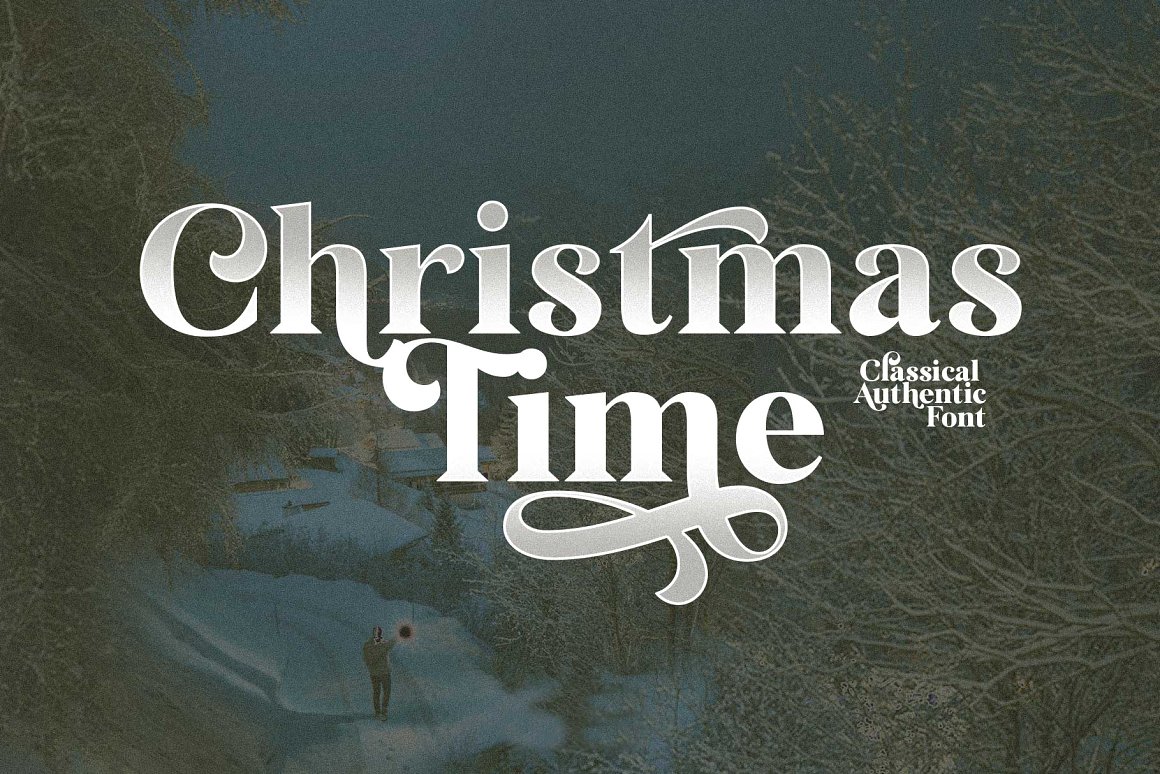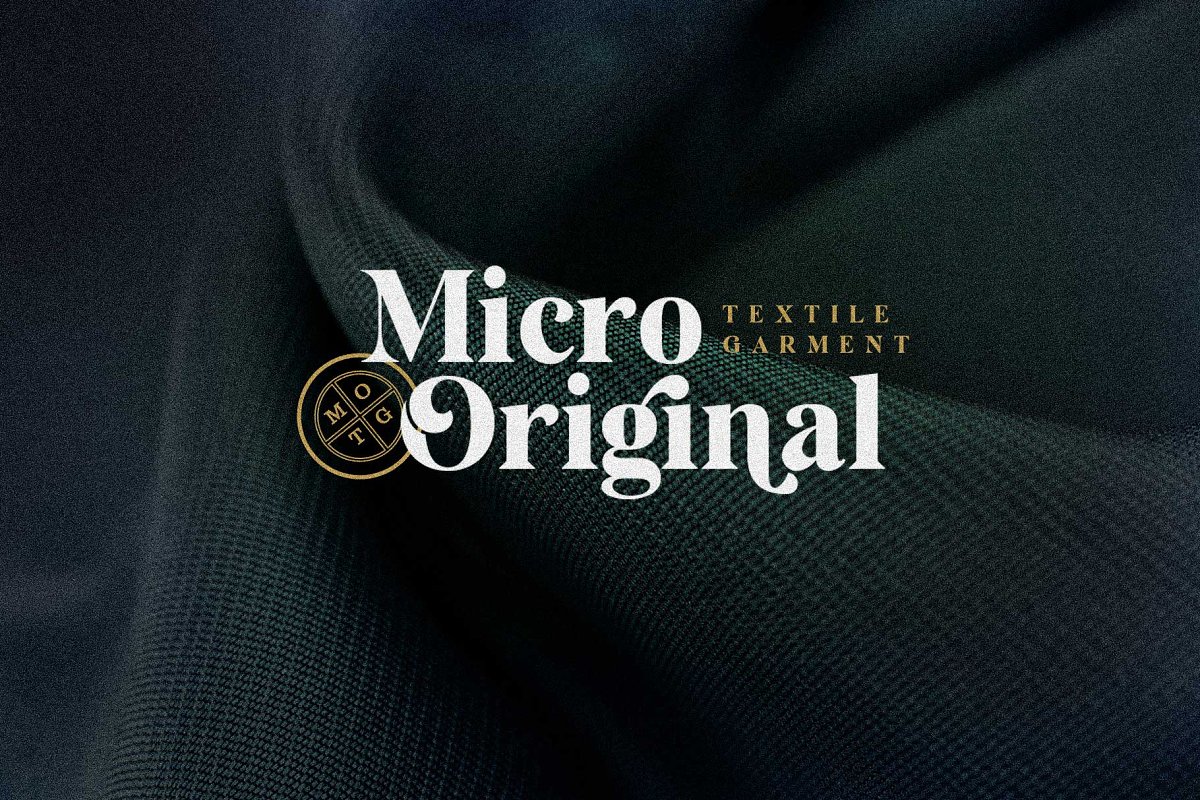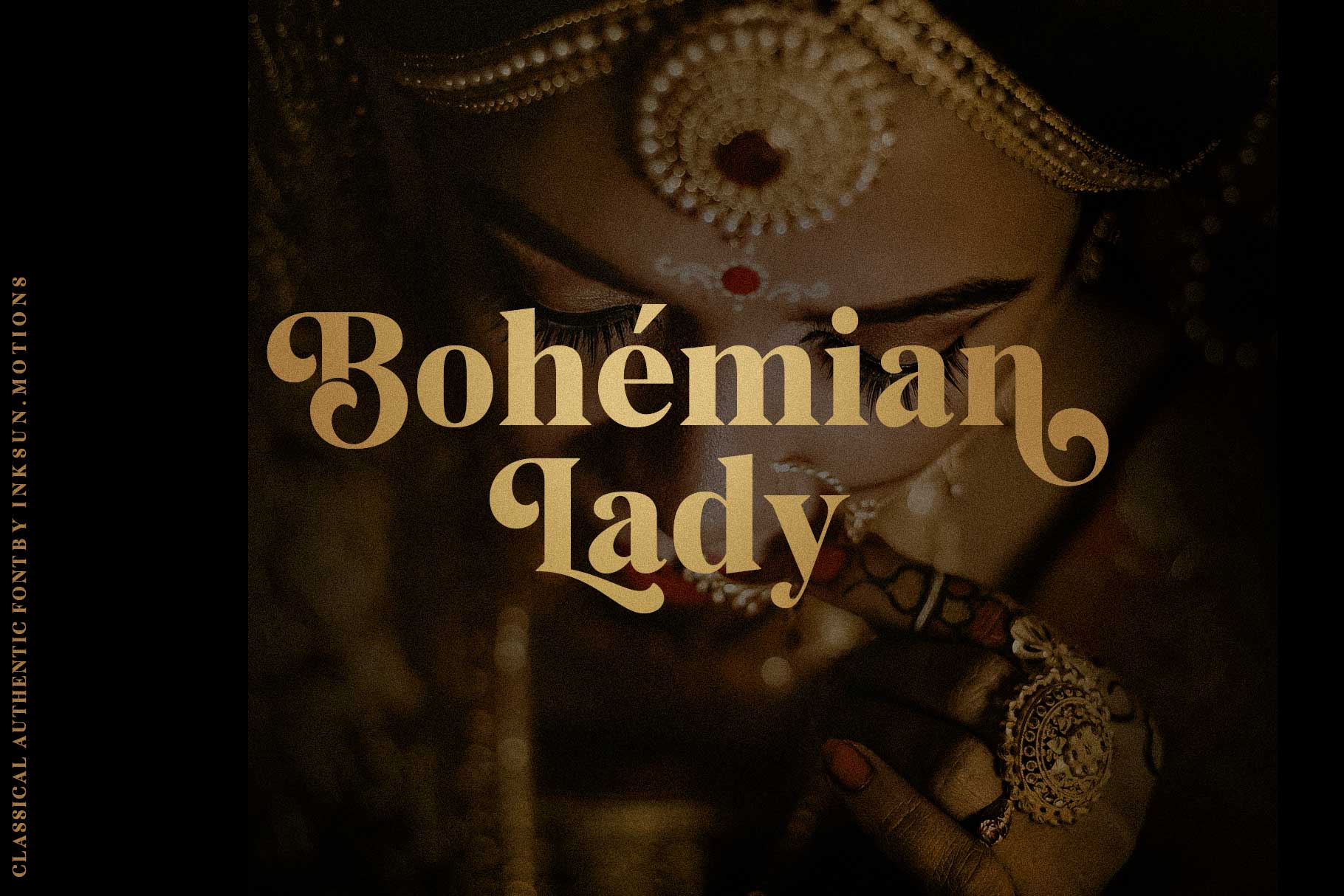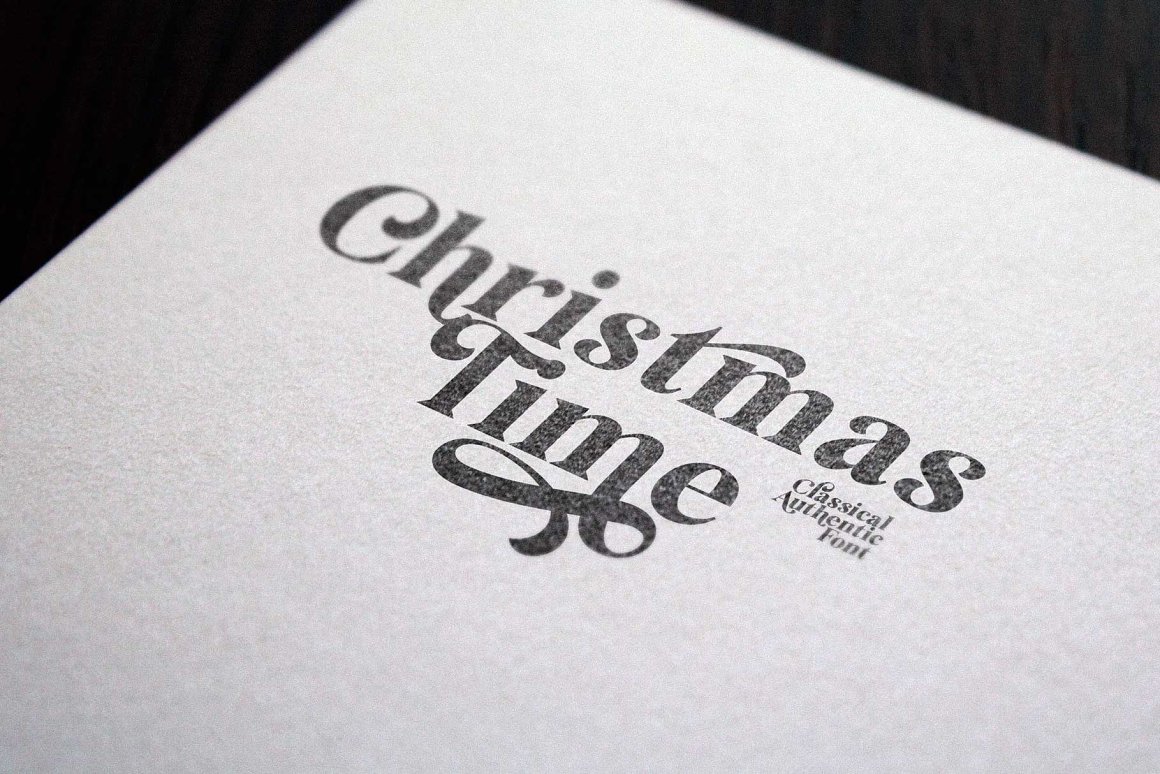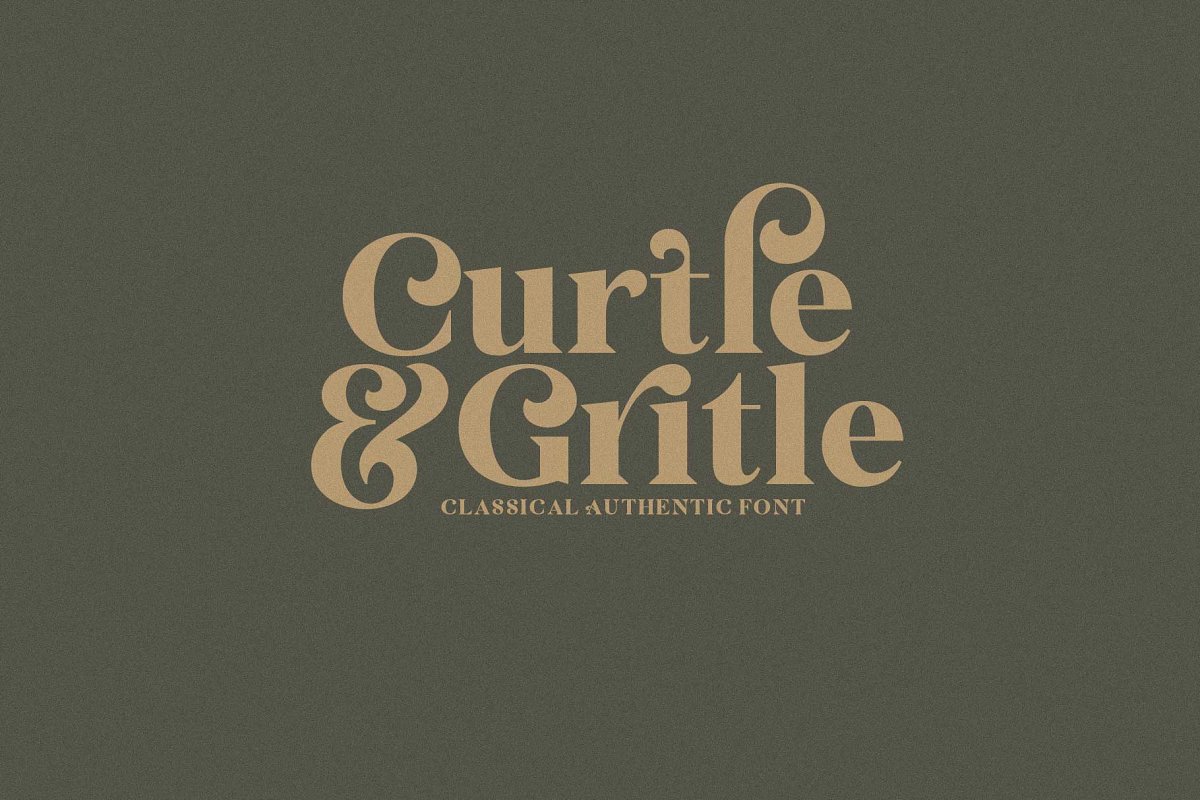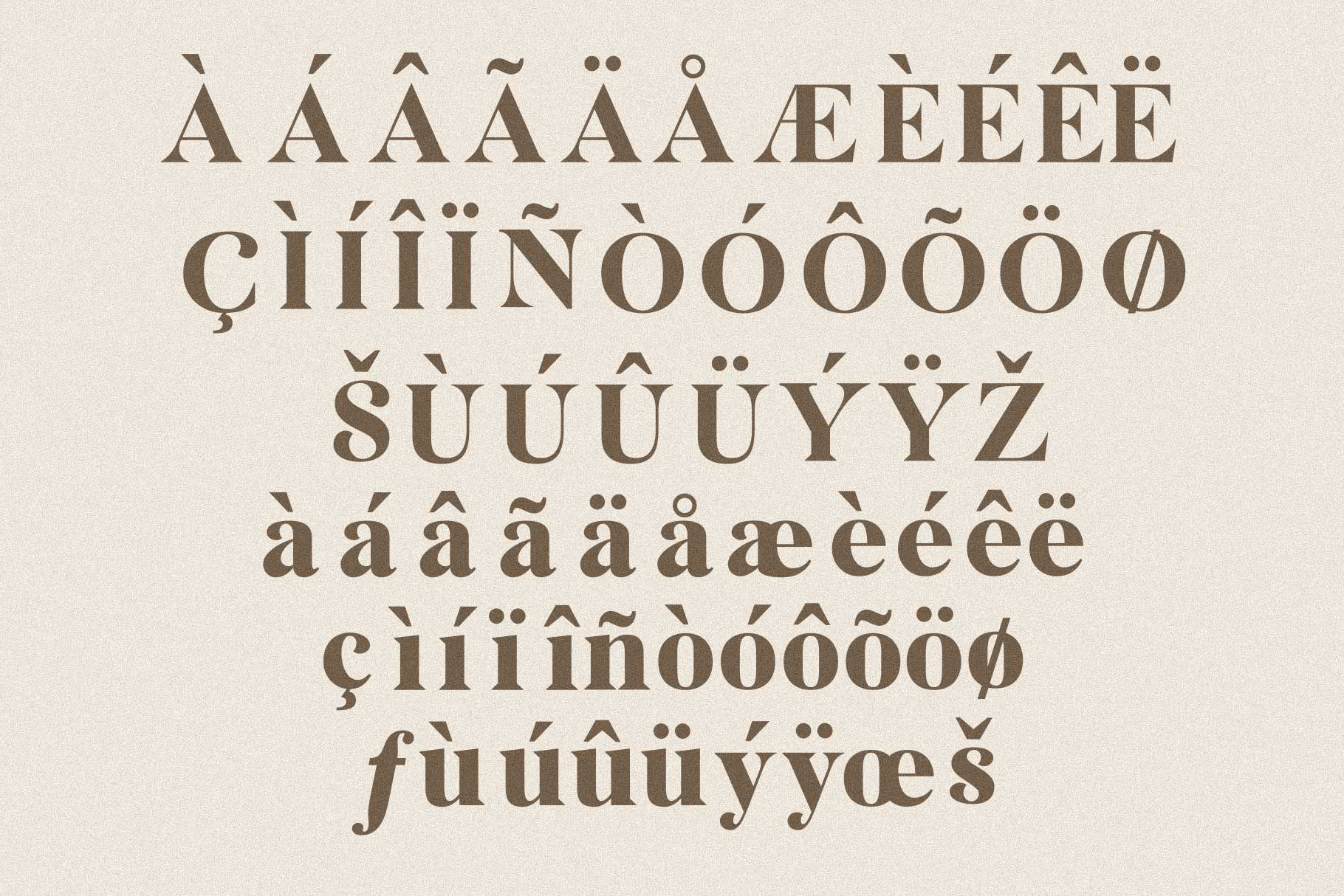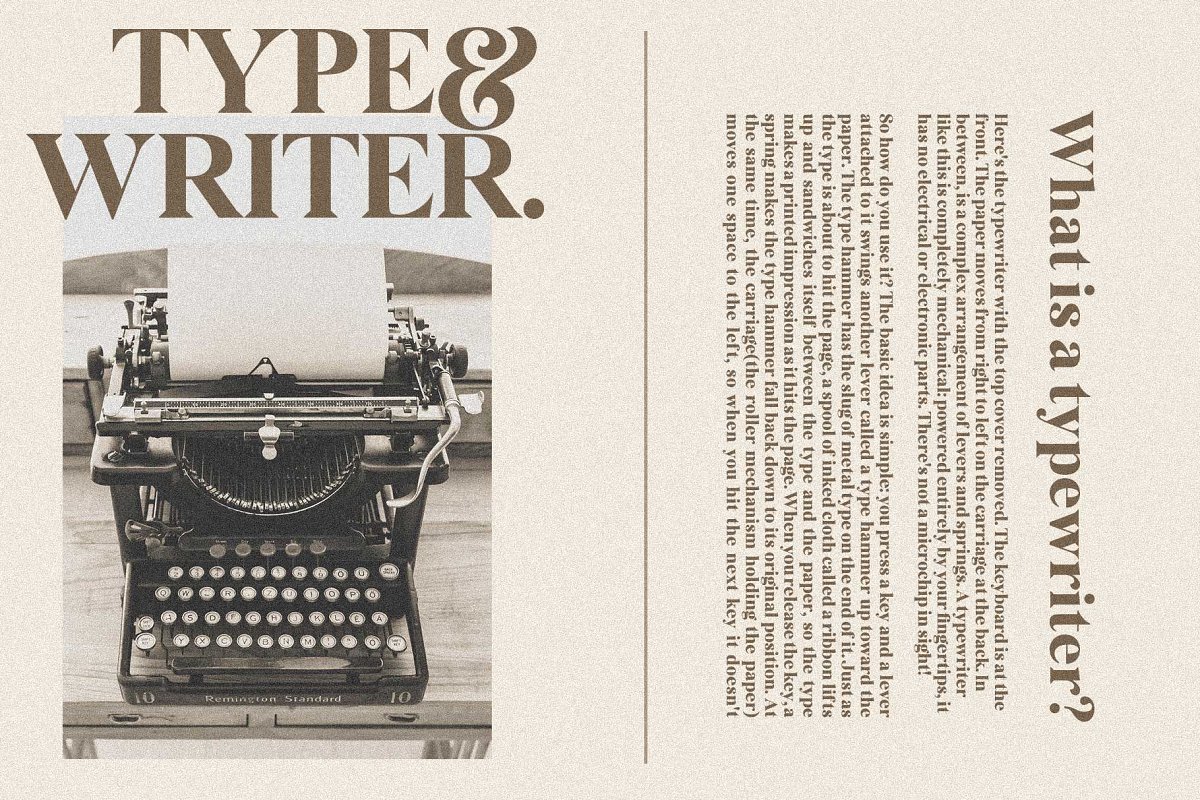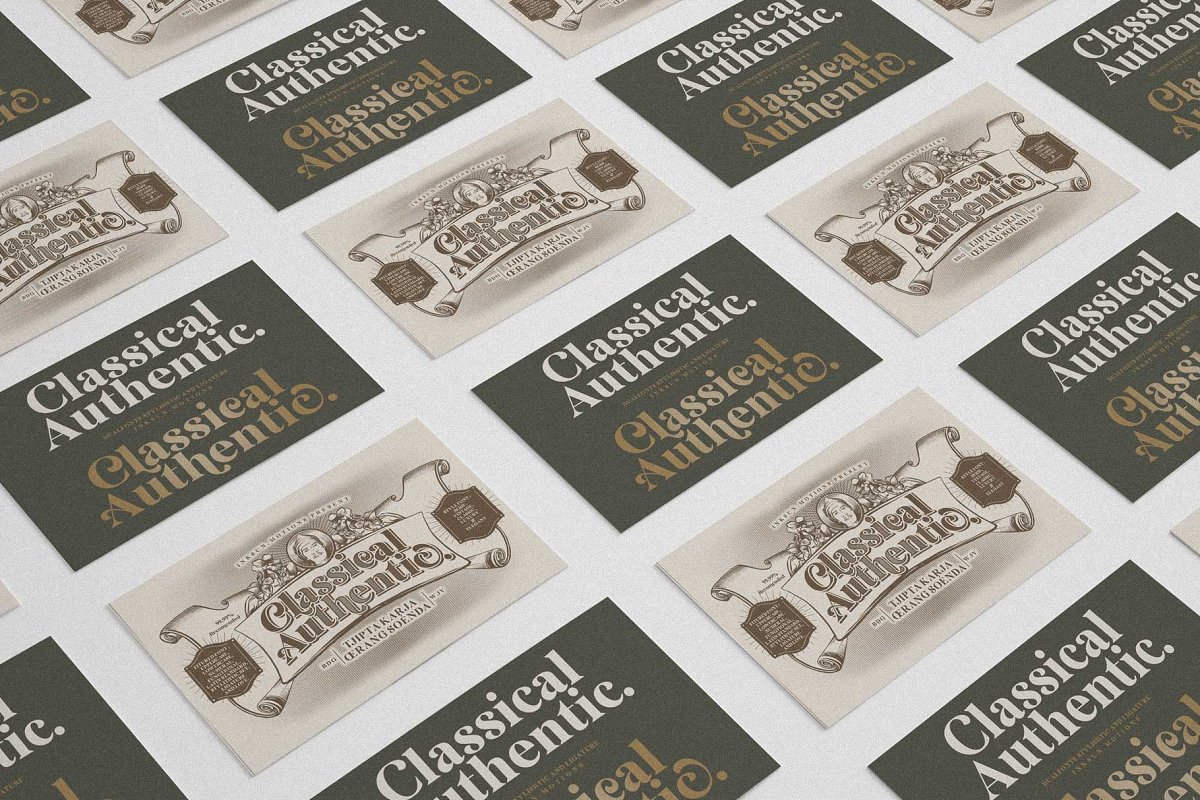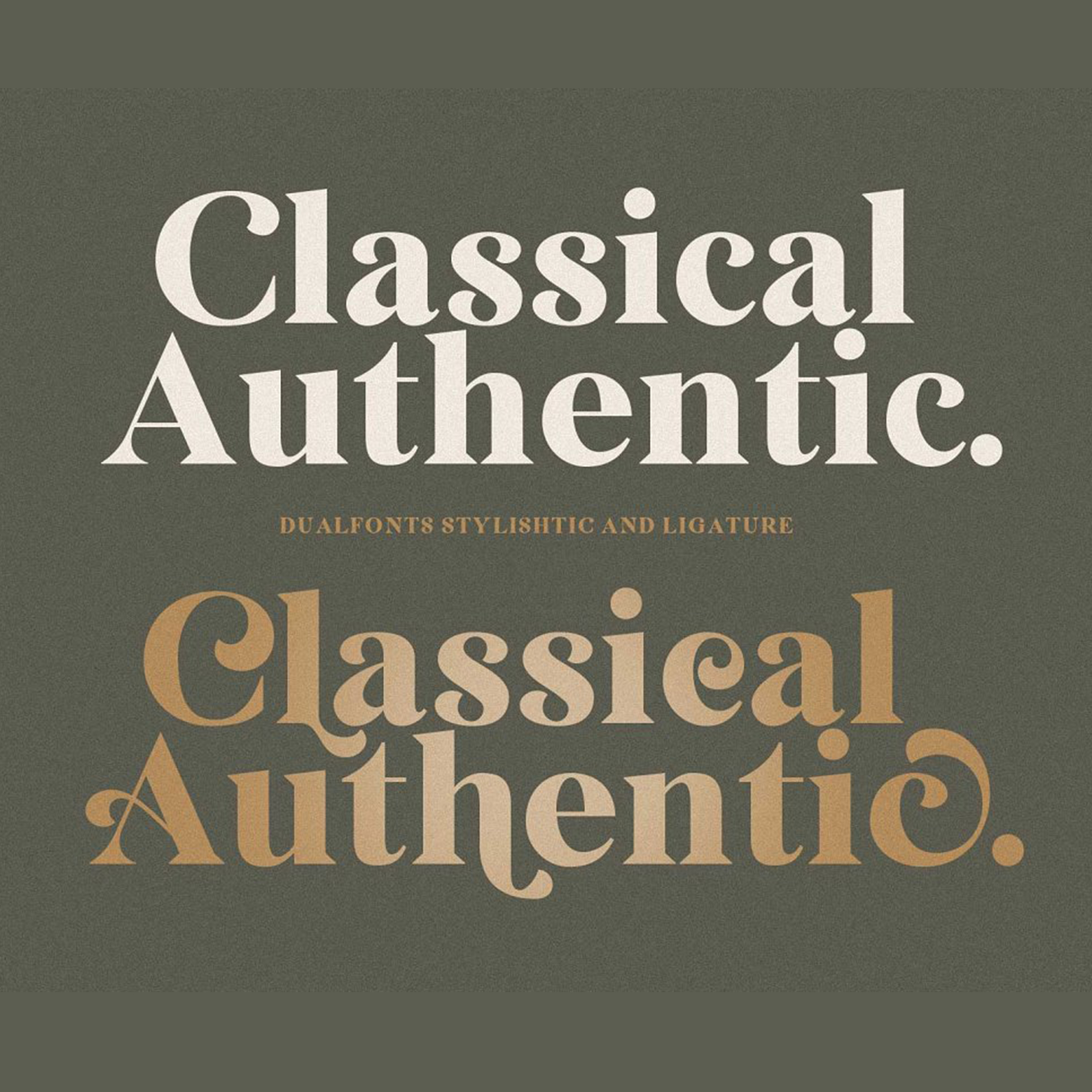
Hello everyone, this time our third product is “classical authentic font”, this font has a stylish, classic, vintage, simple and elegant design. depending on what design you have, then this font is ready to accompany your creative fields. this is definitely useful and very helpful to add nuance to your design. very suitable for logos, posters, magazine displays or other creative fields.
This font has several additional features such as Ligature and stylishtic, You can see it in the display below. What are you waiting for, “Classical Authentic” appears at competitive prices. with guaranteed quality. If you are interested in having a commercial license, you can get it just $25 !, send email at gilangsenzana@gmail.com and get your license. Try and buy right away. Have a nice day!